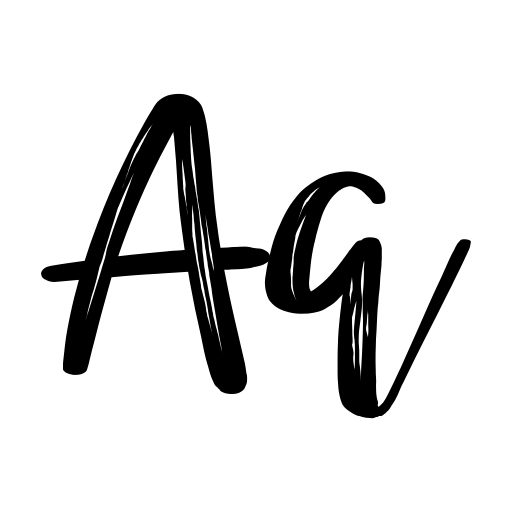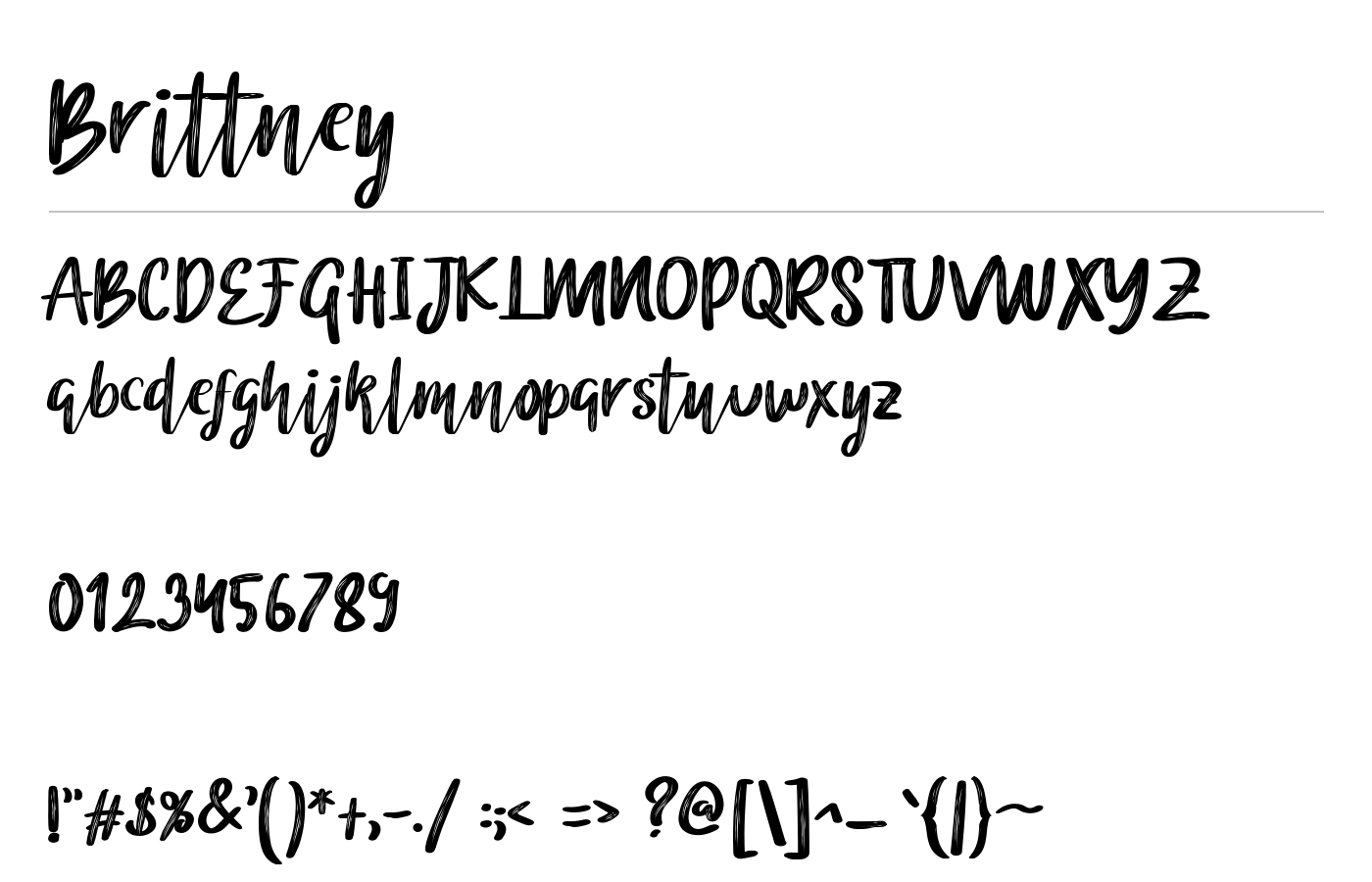
Brittney Font is a lively and casual script typeface with a handwritten feel, characterized by its medium weight and playful, flowing strokes. Its unique brush-like texture and high x-height make it eye-catching and easy to read, perfect for designs that want to express creativity and friendliness. This font works well for branding, invitations, and social media headlines where a personal, informal touch is desired.
Brittney Font
About Brittney Font
| Font family | Brittney Font |
| Designer | Debut Studio |